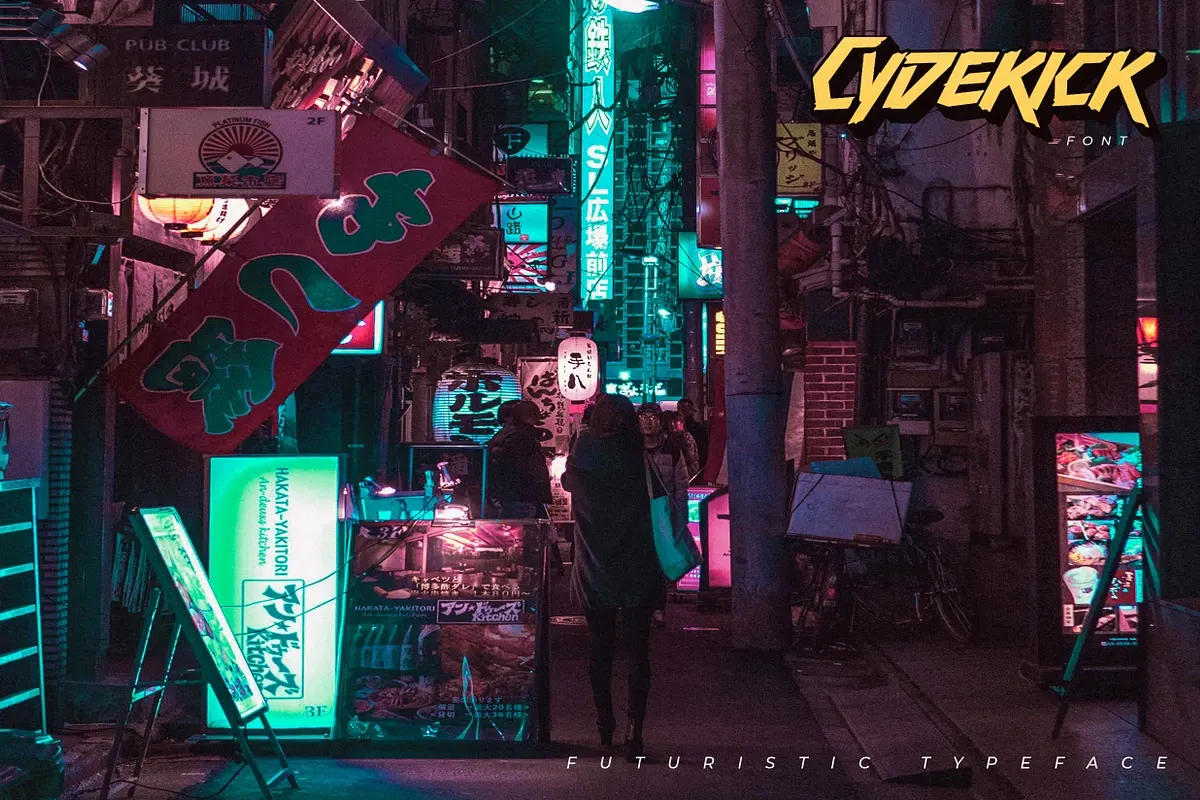
Cydekick – Futuristic Fonts Free Download is a sleek, high-tech typeface designed for the future. With sharp angles, clean geometry, and digital-inspired style, this font is perfect for sci-fi posters, tech branding, gaming interfaces, and cutting-edge digital content.
Its modern look makes it ideal for anything related to innovation, artificial intelligence, virtual reality, or space exploration. Whether you’re creating a startup logo, an app UI, or promotional graphics for a cyberpunk-themed event, Cydekick delivers the right balance of edge and clarity.
Designers love its bold, futuristic vibe and readability across screens. Bring your design into the next era—download Cydekick – Futuristic Fonts Free Download and make your visuals stand out with a forward-thinking style.